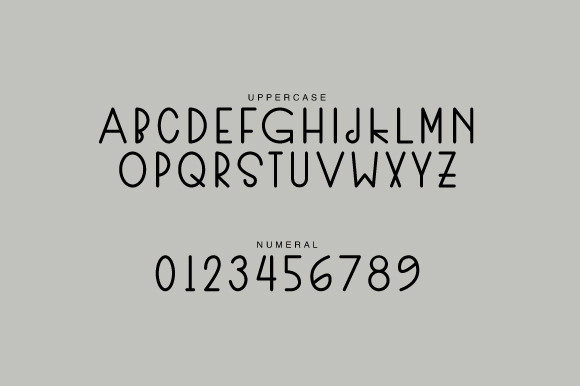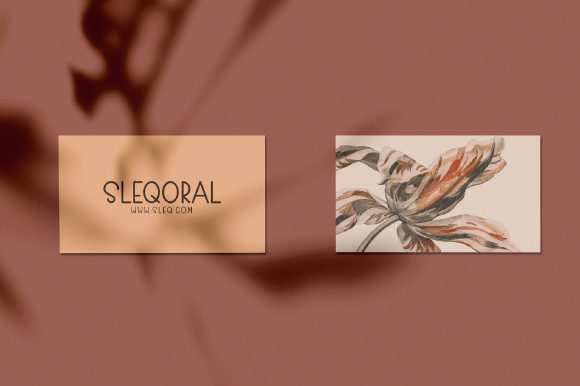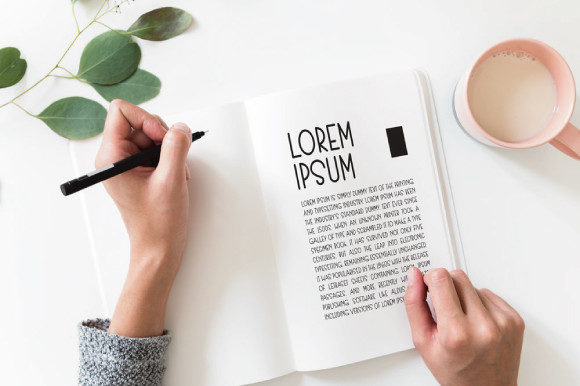
Introduction to Sleq Font
Sleq is a clean and modern sans serif font.
Key Features of Sleq Font
Why Choose Sleq Font?
Sleq Font offers exceptional quality and versatility, making it a valuable addition to your design toolkit. Whether you’re creating for personal projects or commercial use, Sleq Font delivers professional results.